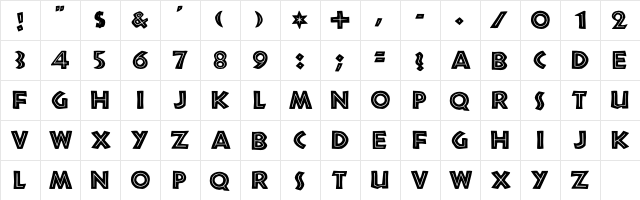
LHF Cincinnati Poster S Regular
| Foundry | Arthur Vanson for Letterhead Fonts |
| Designer | Arthur Vanson |
Design Context for LHF Cincinnati Poster S Typeface
LHF Cincinnati Poster S is a composed and adaptable typeface that performs quietly and consistently across a wide range of design contexts.